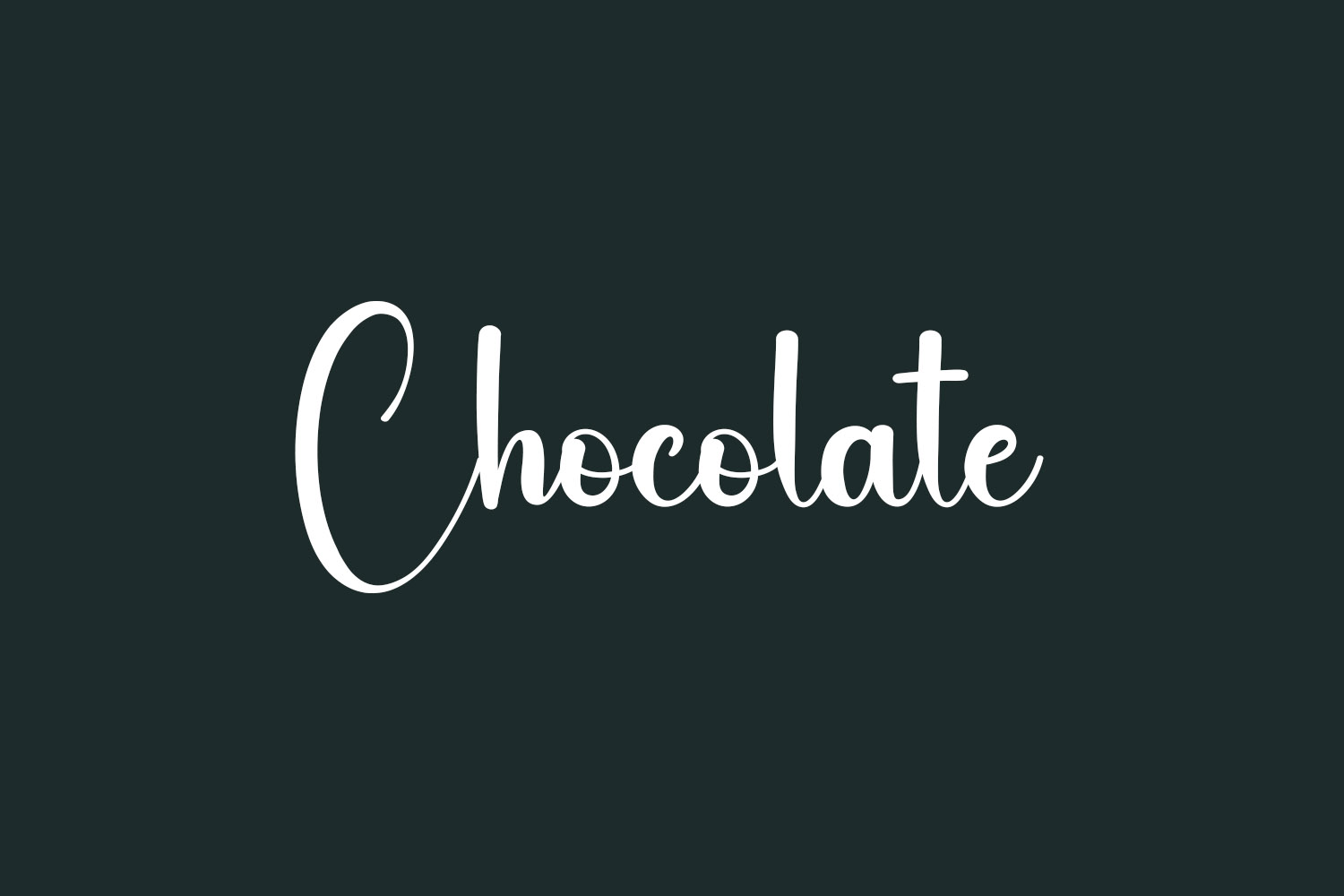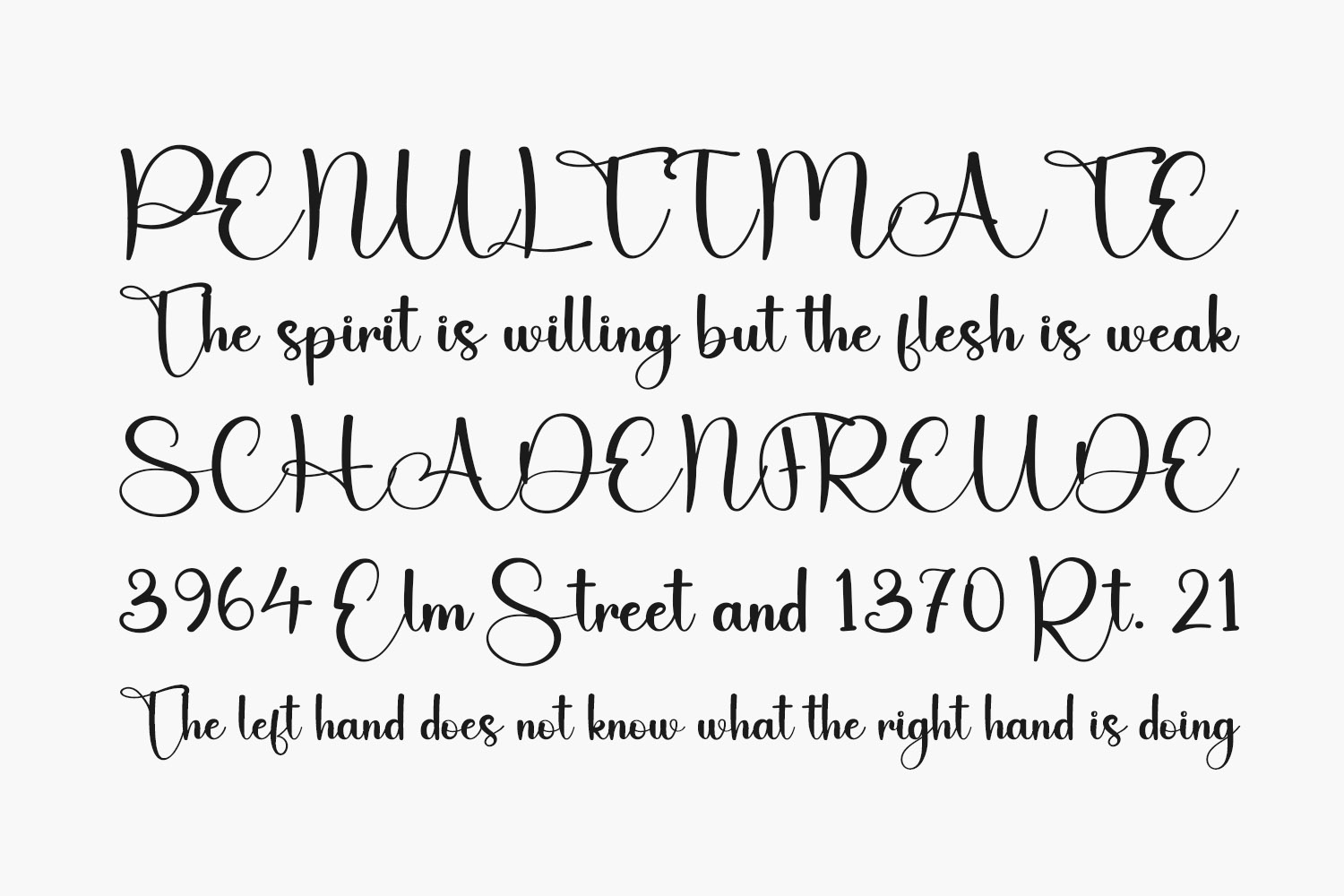
Indulge in the allure of Chocolate Free Font, a captivating handwritten font that radiates sweetness and beauty. With characters that gracefully dance along the baseline, this font is poised to infuse a touch of luxury into all your design endeavors. Chocolate Free Font is free for personal use only. Please purchase the full version for commercial use.